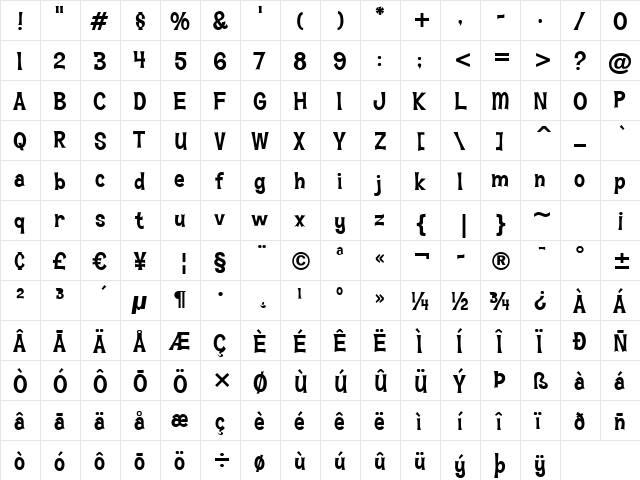
Hawaiian Aloha BTN Bold
Design Context for Hawaiian Aloha BTN Typeface
Hawaiian Aloha BTN is a composed and adaptable typeface that performs quietly and consistently across a wide range of design contexts. Its bold stroke weight gives it real presence on the page.